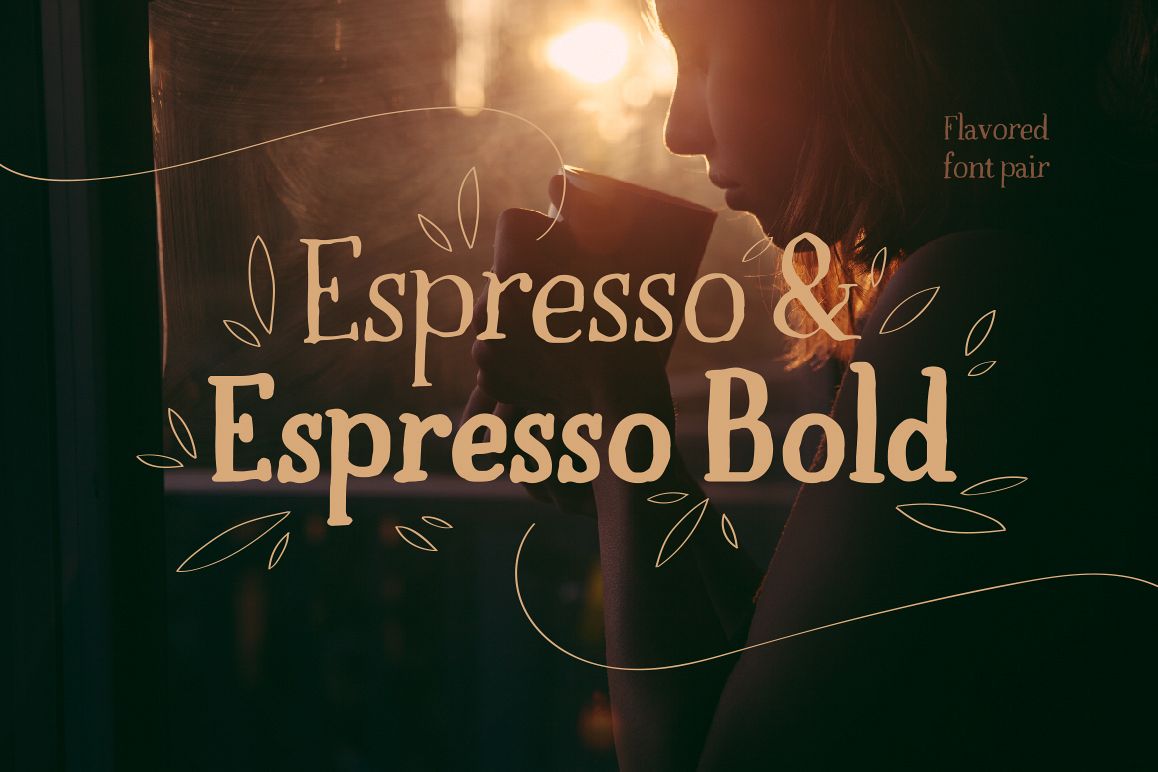
Espresso & Espresso Bold
Compotes Espresso Bold
Compotes Espress
Espresso & Espresso Bold — a fragrant and invigorating font pair!
Espresso & Espresso Bold are a part of Compotes, a large thematic collection of very emotional handwritten fonts. All of the fonts included into the collection are united by several common themes — brightness, freshness, homey feeling, and closeness to the nature.
We've created the perfect set of faces, suitable for home decorations design or for handmade clothes, for small hair studios or fragrant salons of handmade cosmetics, for cozy cafes and luscious bakeries.
These fonts will perfectly cope with any task, for instance, you can use Espresso fonts for tags on jars of homemade jams and pickles, or it can be used in logos or layout sheets in the press.